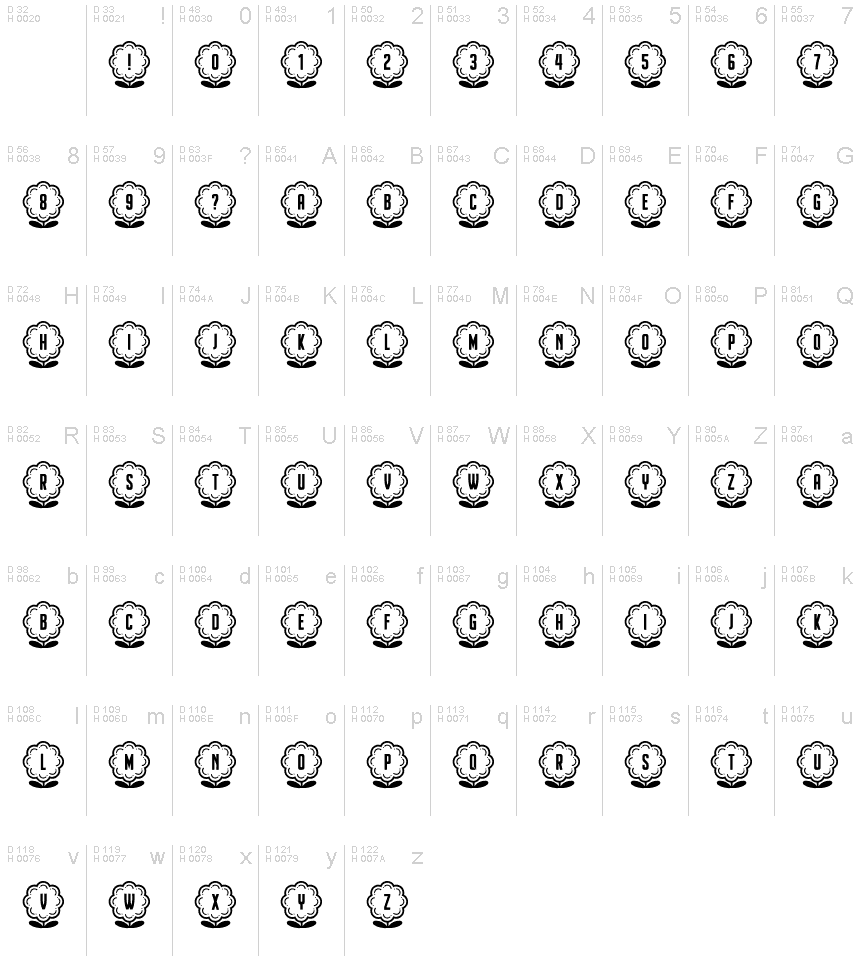
Flower Capitals 3 Regular
Flower Capitals 3 by Vladimir Nikolic is a stunning display font that's perfect for making your projects stand out. Its unique decorative style and semi-light weight make it an ideal choice for creating eye-catching headlines, posters, logos, and more. The condensed width of the font allows you to fit more text into tight spaces without sacrificing legibility. With its floral-inspired capital letters, Flower Capitals 3 is perfect for adding a touch of elegance and sophistication to your designs. Whether you're designing invitations or creating marketing materials, this font will give your work a distinctive look that's sure to impress.